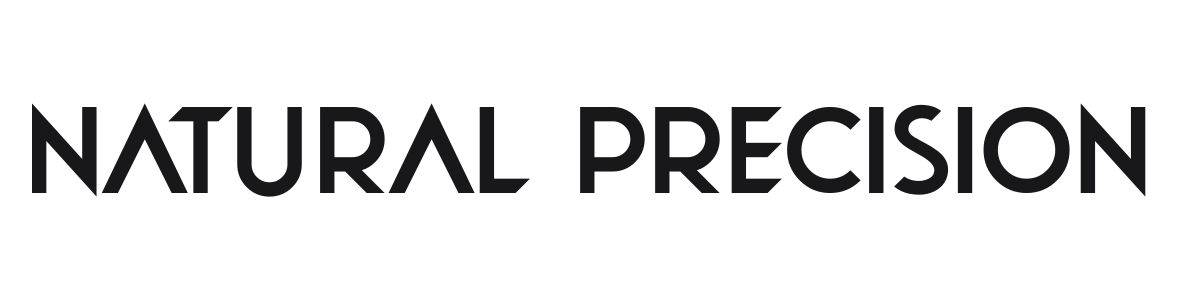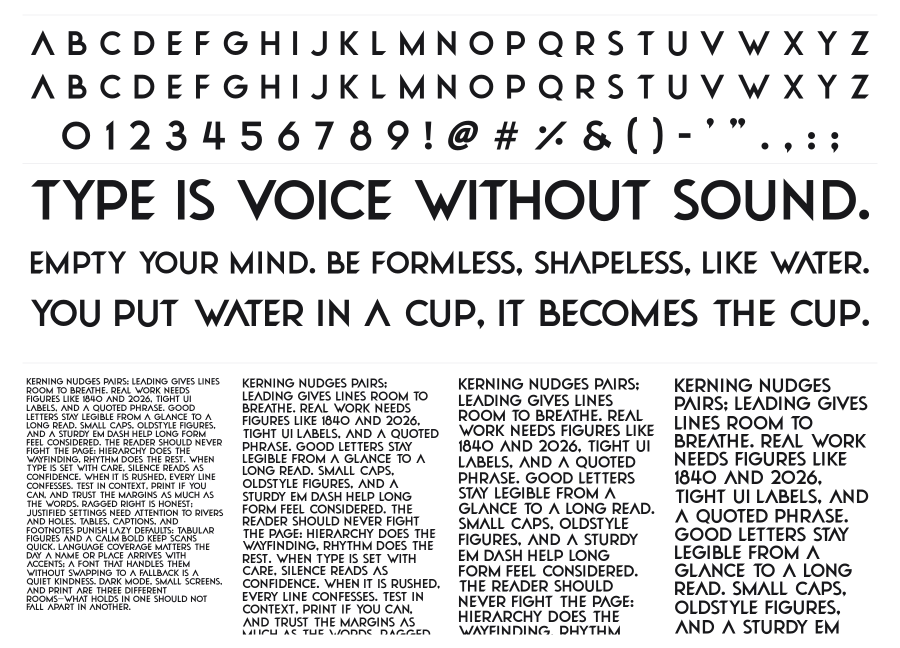
Natural Precision
Natural Precision is a clean geometric sans with wide, confident proportions and near-monoweight strokes. Precise terminals and open apertures give it a sharp, engineered quality that reads well at large sizes. A natural choice for branding, headlines, and any context where clarity and restraint matter.